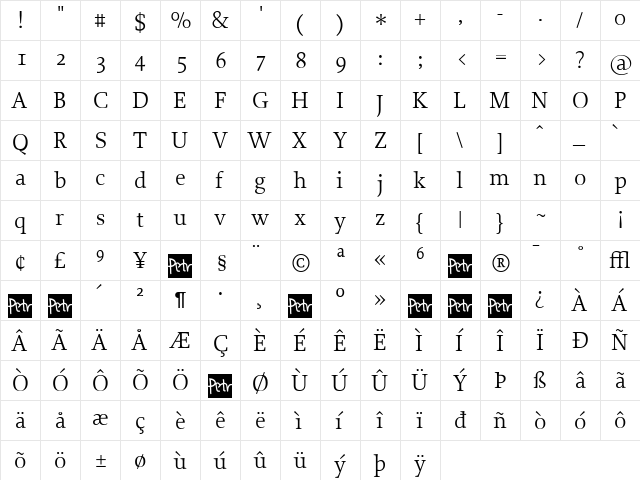
Proforma Book
Design Context for Proforma Typeface
Proforma is a composed and adaptable typeface that performs quietly and consistently across a wide range of design contexts.